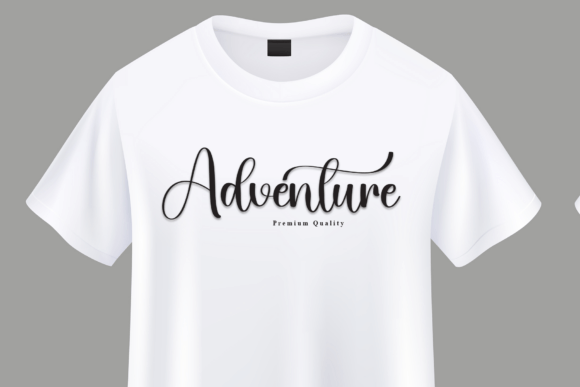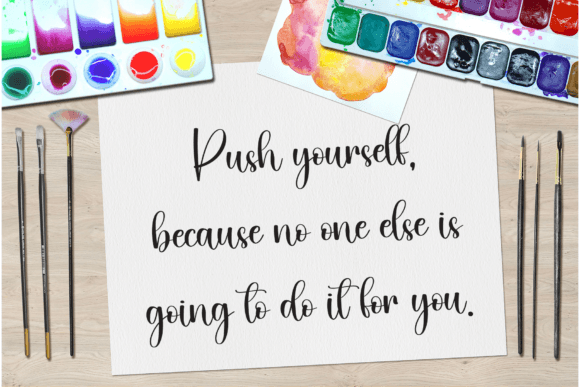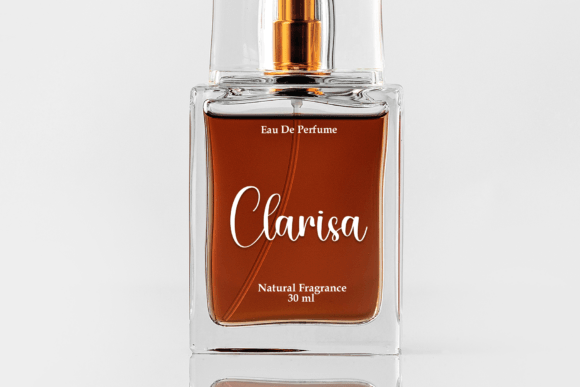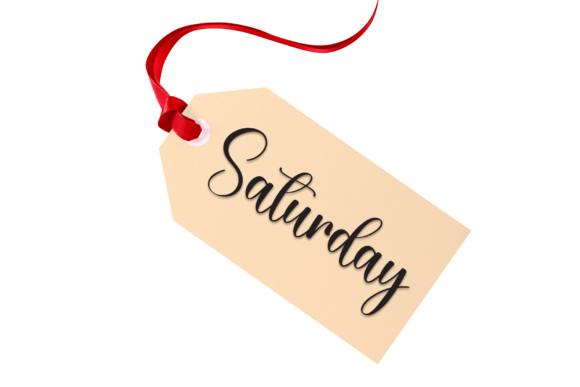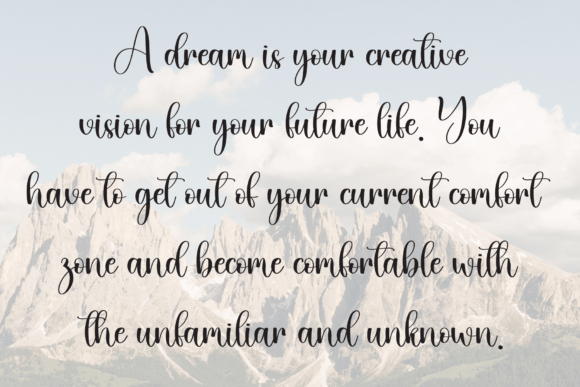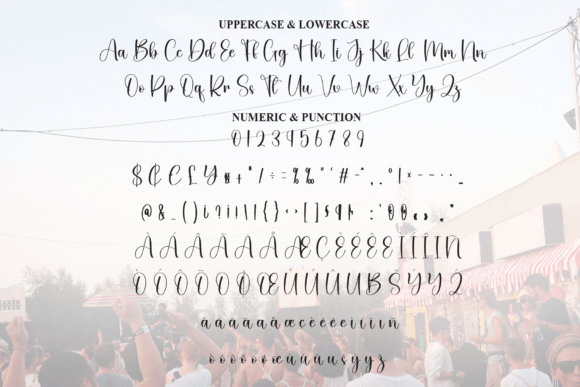
Introducing Bestival Font: Elevate Your Designs with Elegance and Charm
Are you a designer or crafter looking for a font that can add a touch of sophistication and warmth to your creations? Look no further than Bestival Font, a stylish handwritten script font that exudes elegance and charm. With its fluid strokes and natural flow, Bestival Font is perfect for adding a personal touch to invitations, branding, or social media designs.
The Characteristics of Bestival Font
Bestival Font is a beautifully crafted handwritten script font that boasts a range of characteristics that make it stand out from the crowd. Its fluid strokes and natural flow create a captivating, sophisticated look that is sure to impress. The font’s elegant and charming appearance makes it perfect for designs that require a touch of refinement and poise.
Uses for Bestival Font
Bestival Font is a versatile font that can be used in a variety of design applications. Here are some of the ways you can use Bestival Font to elevate your designs:
- Invitations: Whether you’re designing wedding invitations, birthday party invites, or baby shower announcements, Bestival Font is the perfect choice. Its elegant and charming appearance will add a touch of sophistication to your designs.
- Branding: Bestival Font is also perfect for branding applications, such as logos, business cards, and letterheads. Its unique and stylish appearance will help your brand stand out from the competition.
- Social Media: Use Bestival Font to create eye-catching social media graphics, such as Facebook posts, Instagram stories, and Twitter headers. Its fluid strokes and natural flow will add a touch of warmth and creativity to your designs.
Benefits of Using Bestival Font
There are many benefits to using Bestival Font in your designs. Here are some of the advantages of choosing Bestival Font:
- Elegance and Charm: Bestival Font exudes elegance and charm, making it perfect for designs that require a touch of sophistication.
- Versatility: Bestival Font is a versatile font that can be used in a variety of design applications, from invitations to branding and social media.
- Warmth and Creativity: Bestival Font brings a sense of warmth and creativity to any design, making it perfect for designers and crafters who want to add a personal touch to their creations.
Tips for Using Bestival Font
Here are some tips for using Bestival Font in your designs:
- Pair with Other Fonts: Bestival Font looks great when paired with other fonts. Try pairing it with a clean sans-serif font for a stylish and modern look.
- Use in Headlines: Bestival Font is perfect for headlines and titles. Use it to add a touch of elegance and charm to your designs.
- Experiment with Colors: Bestival Font looks great in a range of colors. Experiment with different colors to find the perfect shade for your design.
In conclusion, Bestival Font is a stylish handwritten script font that exudes elegance and charm. Its fluid strokes and natural flow create a captivating, sophisticated look that is perfect for adding a personal touch to invitations, branding, or social media designs. With its versatility, warmth, and creativity, Bestival Font is a must-have font for designers and crafters who want to elevate their designs to the next level.